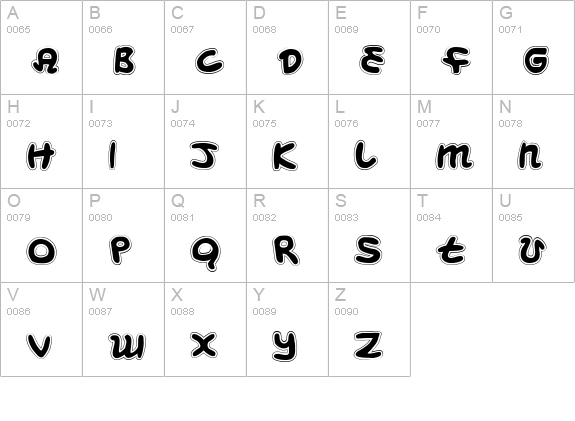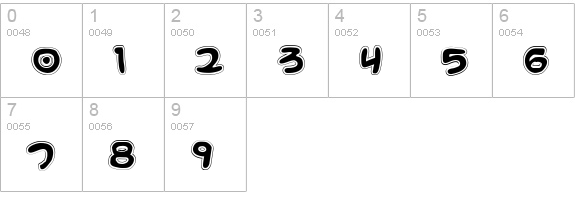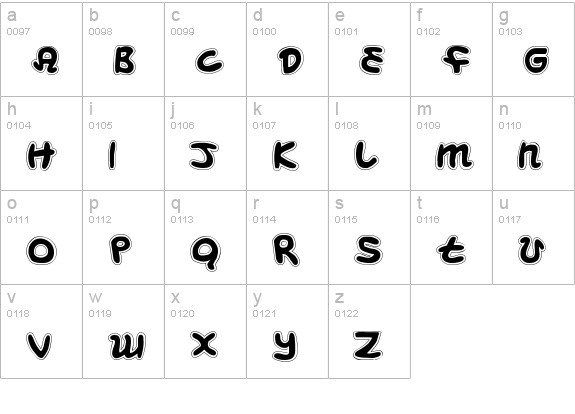
Magic Beans Collage Font Details
Magic Beans Collage font is a whimsical and unique typeface that brings a touch of magic to your design projects. With its playful and hand-drawn style, this font is perfect for adding a fun and creative element to any artwork or design. Each letter is carefully crafted to resemble a collage of magical beans, creating a charming and captivating aesthetic. What makes Magic Beans Collage font even more special is that it is available for free download at FontsMarket.com. This means that you can easily access this delightful font and use it in your personal or commercial projects without any cost. So go ahead and add a sprinkle of magic to your designs with Magic Beans Collage font today!